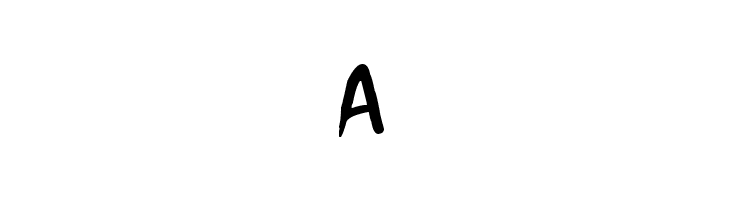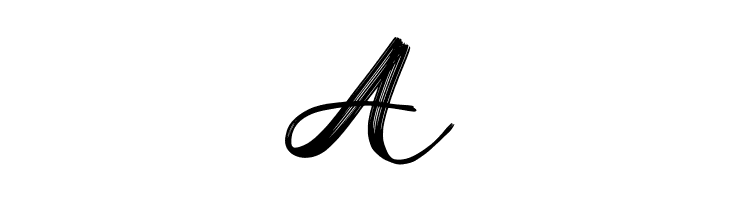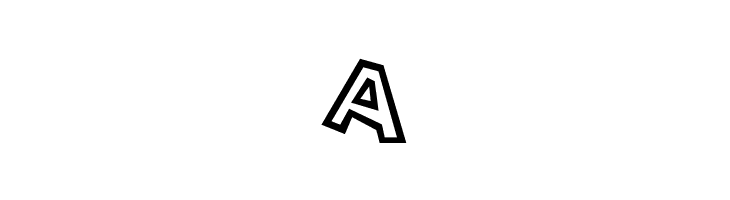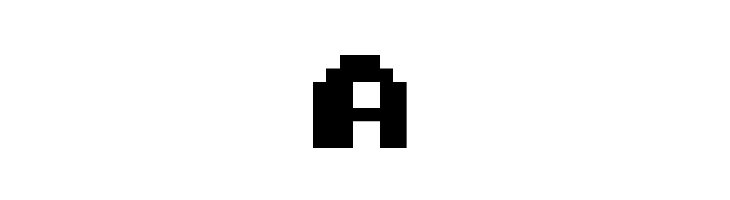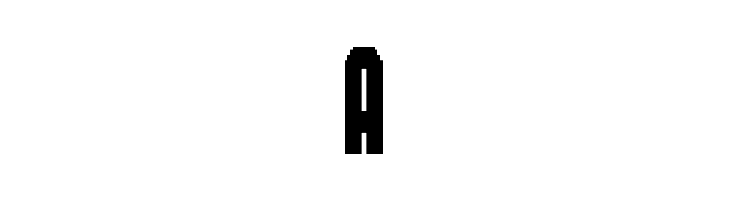
A bold, graffiti-inspired font with sharp, angular lines and dynamic strokes.
A bold, dotted font with a playful and artistic style.
A playful, bold, and rounded font with a hand-drawn, whimsical style.
A playful, bold, and hand-drawn style font with rounded characters.
A flowing, elegant handwritten script font with a personal touch.
A bold, rounded font with a playful and friendly style.
A decorative font with characters encased in sunflower designs, offering a playful and whimsical style.
A dynamic brush script font with fluid strokes and elegant flair.
A playful, handwritten font with elongated, thin strokes and a whimsical style.
A fluid, elegant handwritten font with connected letterforms and a casual style.
A lively brush script font with bold, dynamic strokes and a hand-painted feel.
A bold, hand-painted style font with thick, uneven strokes and a playful, dynamic feel.
A playful, dotted font with geometric consistency and a dynamic appearance.
A bold, playful font with rounded, bubbly characters.
A bold, playful font with thick, rounded characters and a retro-modern style.
A bold, playful font with thick, rounded strokes and a retro vibe.
A bold, playful, handwritten-style font with thick, rounded strokes.
A bold, playful font with rounded characters and a retro vibe.
A bold, brush-style font with a playful and dynamic appearance.
A bold, italic font with a dynamic and energetic style.
A bold, geometric font with a retro gaming aesthetic, ideal for nostalgic designs.
A bold, pixelated font with a retro video game aesthetic.
A bold, pixelated font inspired by classic video game graphics.
A bold, geometric font with a retro, stencil-like design.
A bold, retro, pixelated font with a strong, blocky design.
A playful and expressive brush script font with bold, rounded characters.
( Fonts by Darrell Flood )
A geometric, pixelated font with a modular and digital aesthetic.
( Fonts by Press Gang Studios - Personal-use only. For commercial use please contact owner. )
A bold, playful handwritten font with a comic book style.
( Fonts by Press Gang Studios - Personal-use only. For commercial use please contact owner. )
A bold, playful handwritten font with dynamic curves and thick strokes.
A bold, italicized font with dynamic, brush-like strokes and a lively, hand-drawn style.
A rough, brush-style font with bold, dynamic strokes.